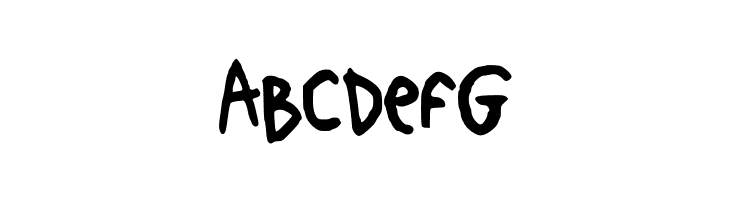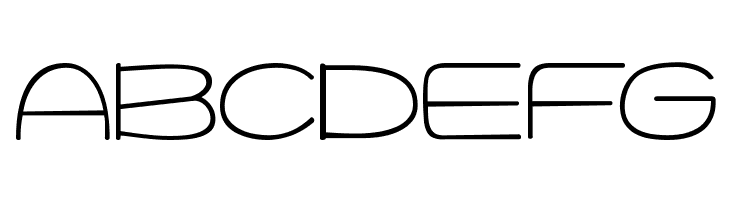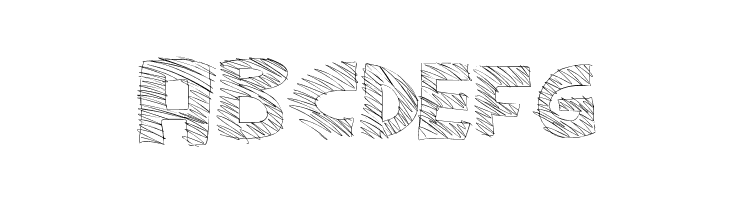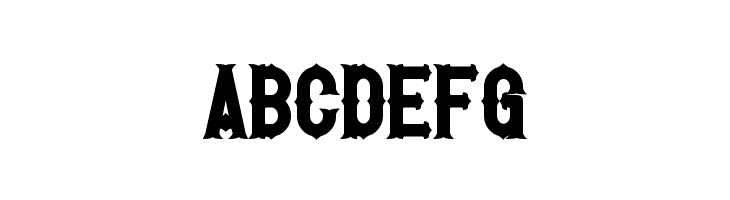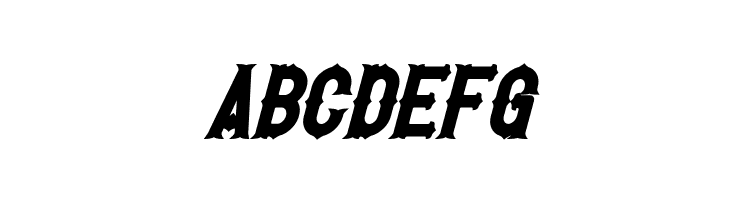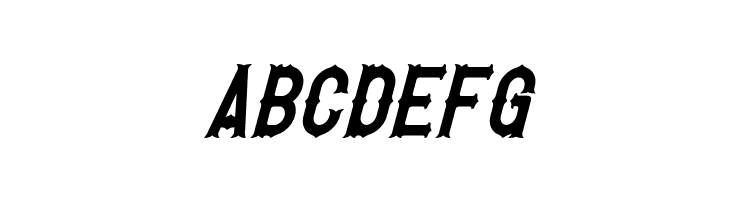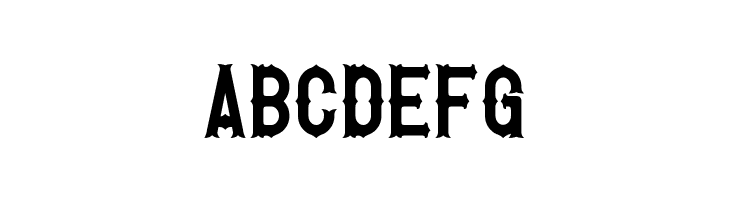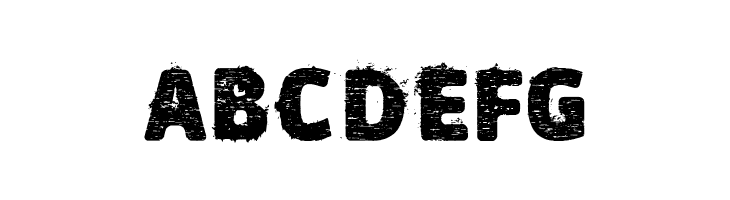
FirstContact Font
A modern, italicized font with a sleek and dynamic appearance.
Hetfield Font
A bold, gothic-inspired font with sharp, angular edges.
Hetfield Bold Font
A bold, Gothic-inspired font with sharp edges and dramatic styling.
Hetfield Bold Italic Font
A bold, italicized font with sharp edges and a dynamic presence.
Hetfield Italic Font
A bold, italic font with sharp, angular edges and a dynamic, modern style.
KG Change This Heart Font
A modern, geometric font with clean lines and a minimalist style.
KindergartenNBP Font
A playful, childlike font with bold, irregular characters.
MajorSketchy Font
A sketchy, hand-drawn font with a playful and artistic style.
RealFast Font
A bold, distressed font with a rugged, brushstroke appearance.
vtks sujinha Font
A bold, distressed font with a grunge texture and rugged appearance.